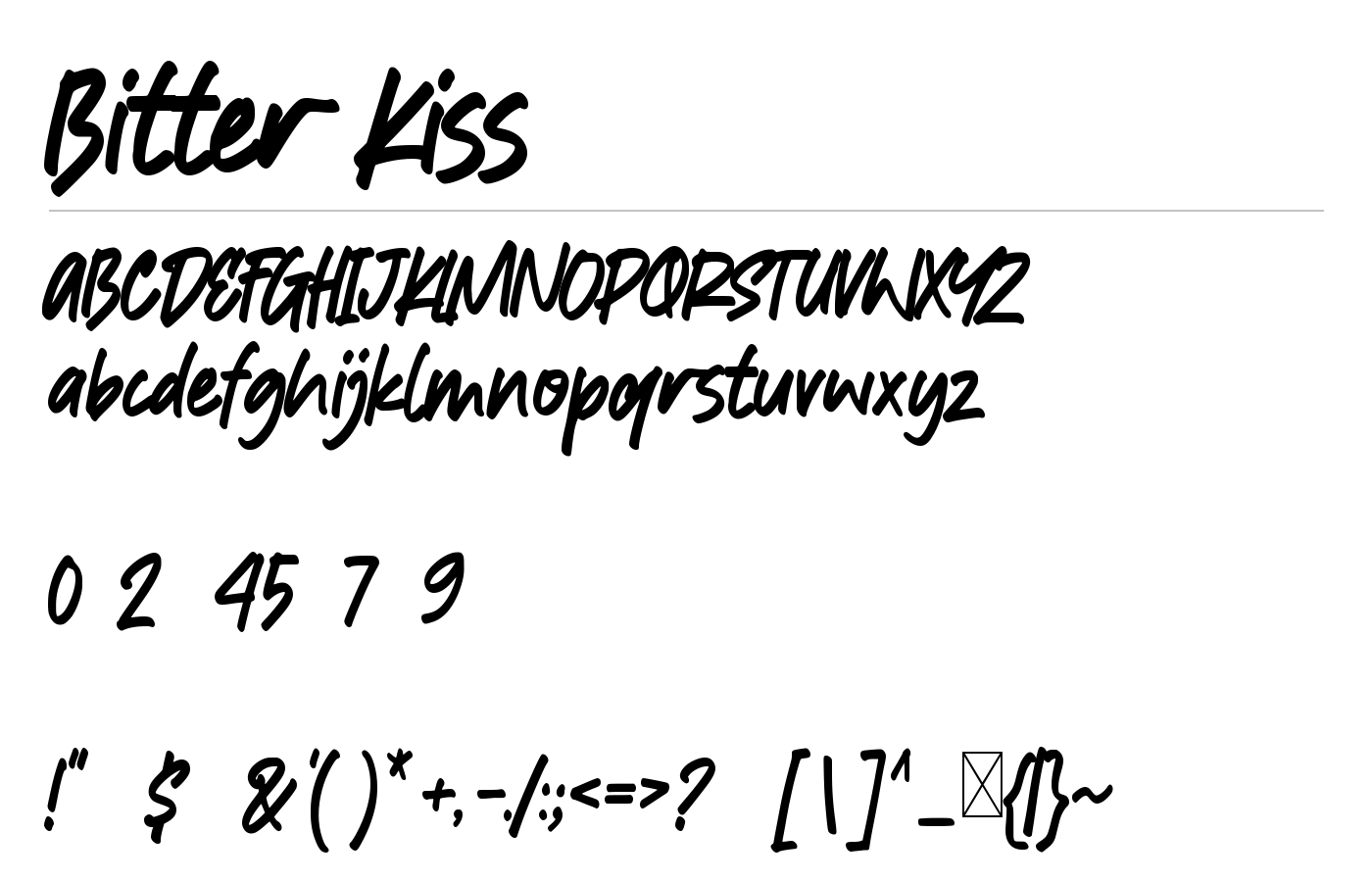
Bitter Kiss is a bold and lively handwritten script font with a casual, energetic vibe. Its smooth, organic strokes and slightly condensed letterforms create a playful yet confident feel, making it perfect for informal branding, creative projects, and attention-grabbing headlines. This font works well where a personal and expressive touch is desired, adding warmth and character to any design.
Bitter Kiss Font
About Bitter Kiss Font